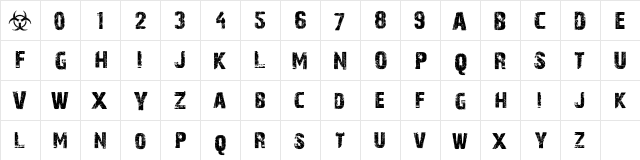
28 Days Later Cyr Regular
| Foundry | Jens R. Ziehn, Sergiy S. Tkachenko |
| Designer | Jens R. Ziehn, Sergiy S. Tkachenko |
Design Context for 28 Days Later Cyr Typeface
28 Days Later Cyr is a composed and adaptable typeface that performs quietly and consistently across a wide range of design contexts.